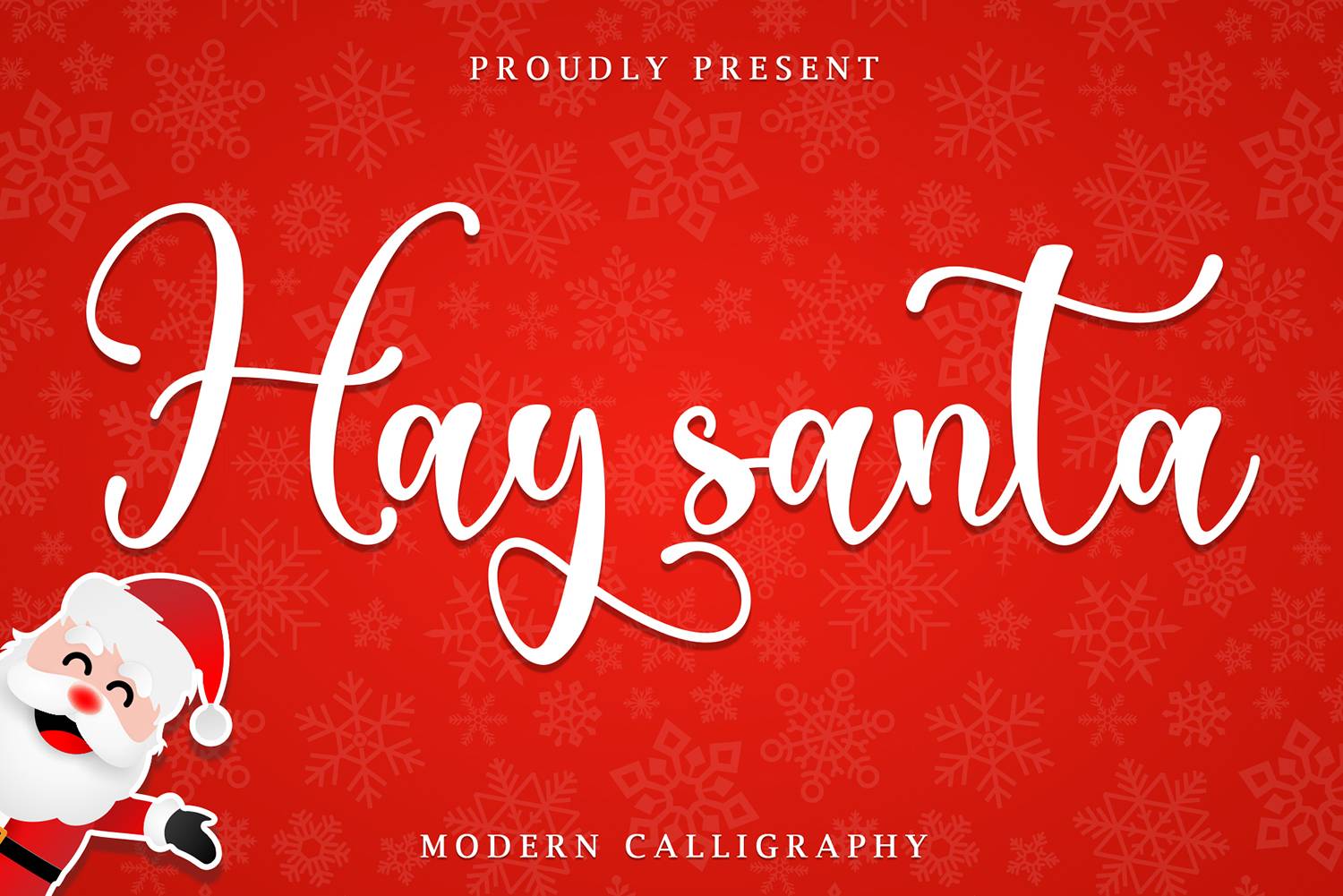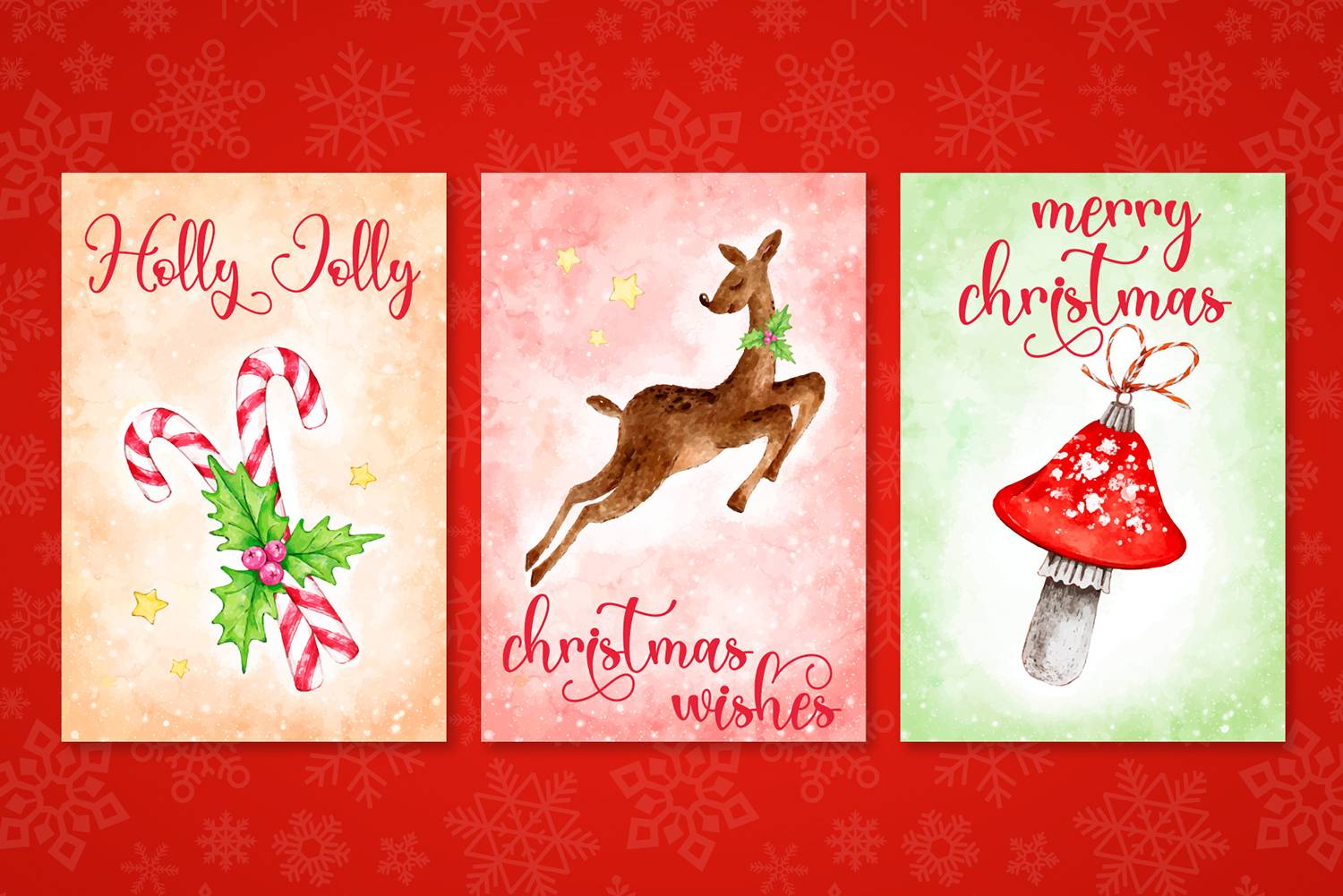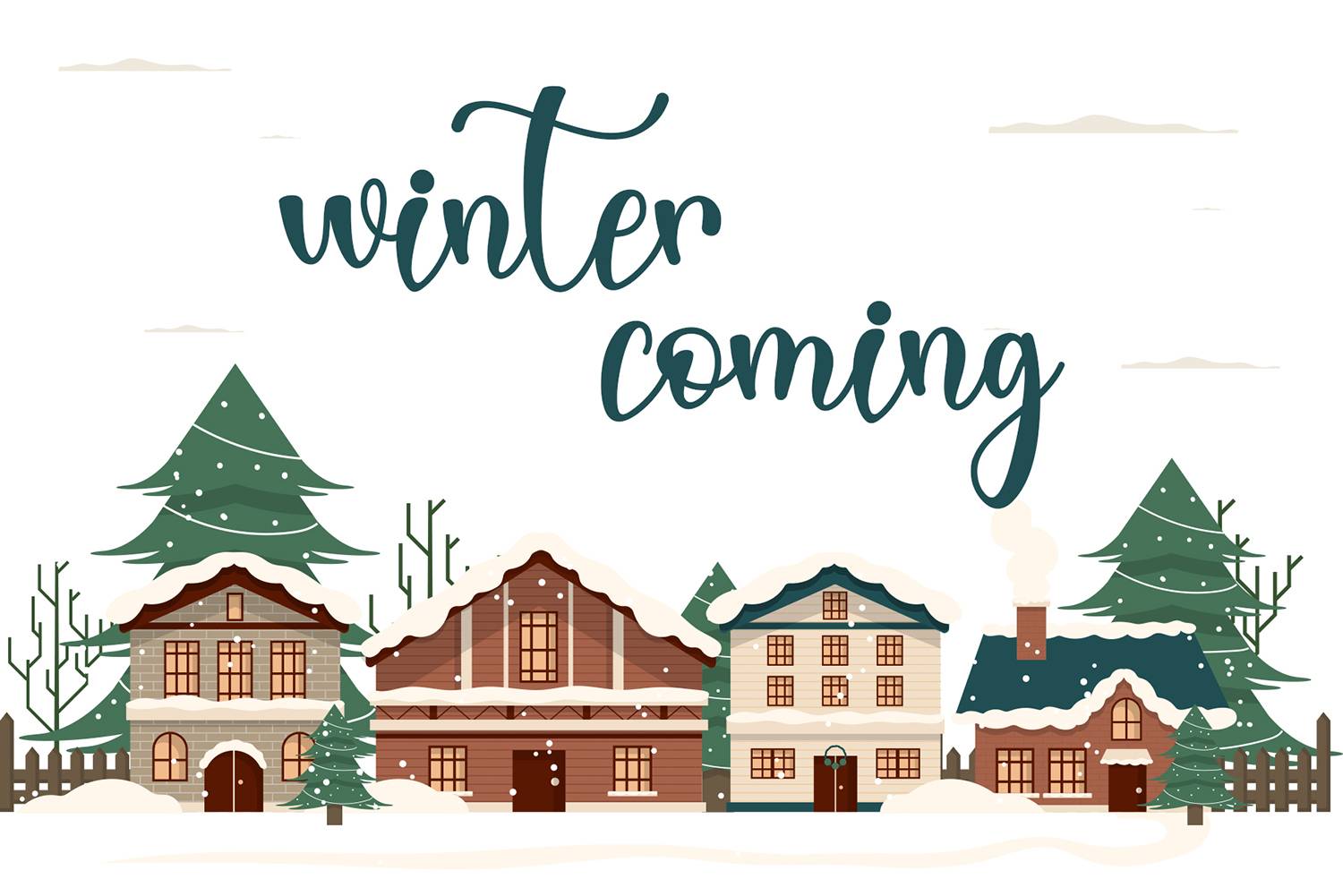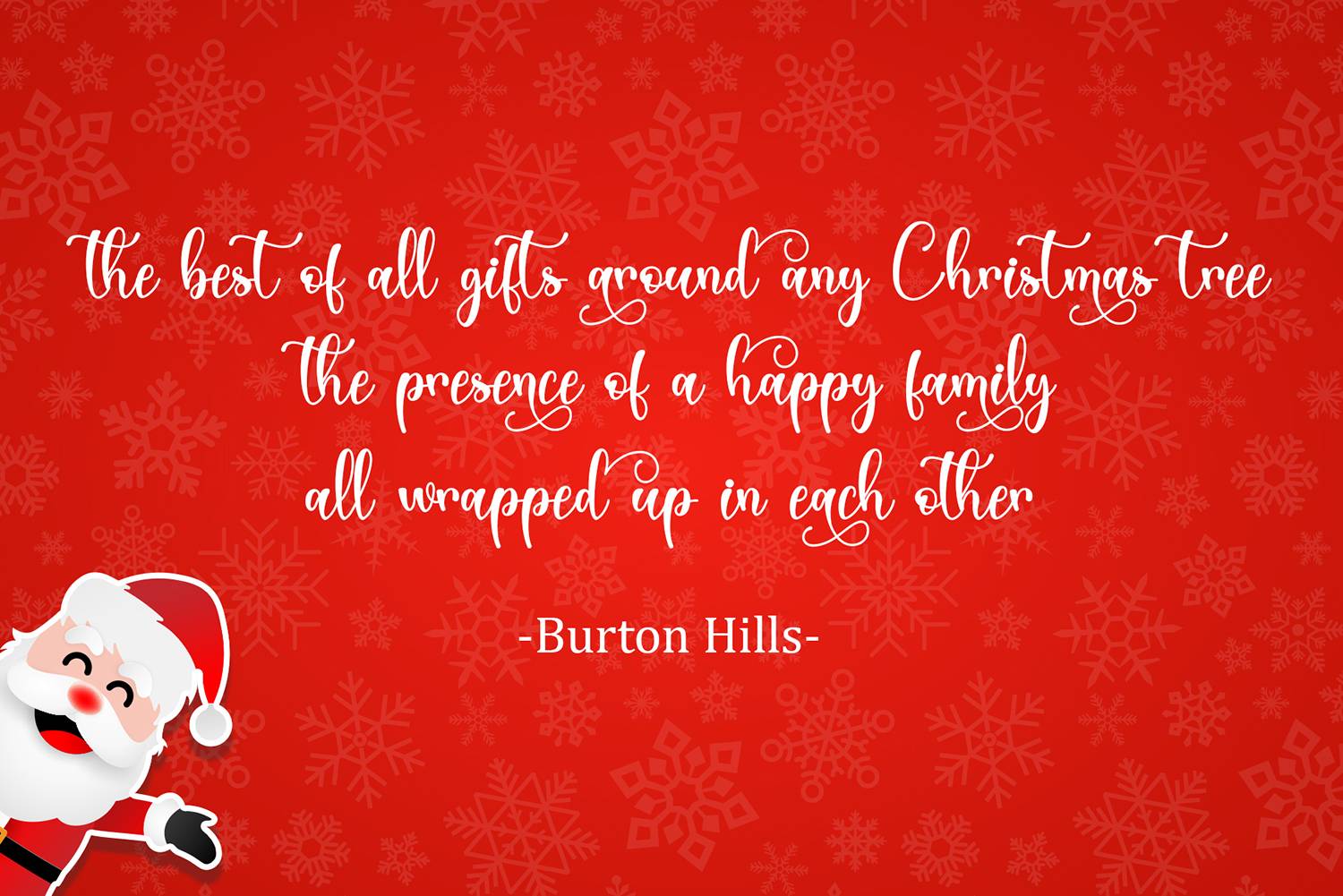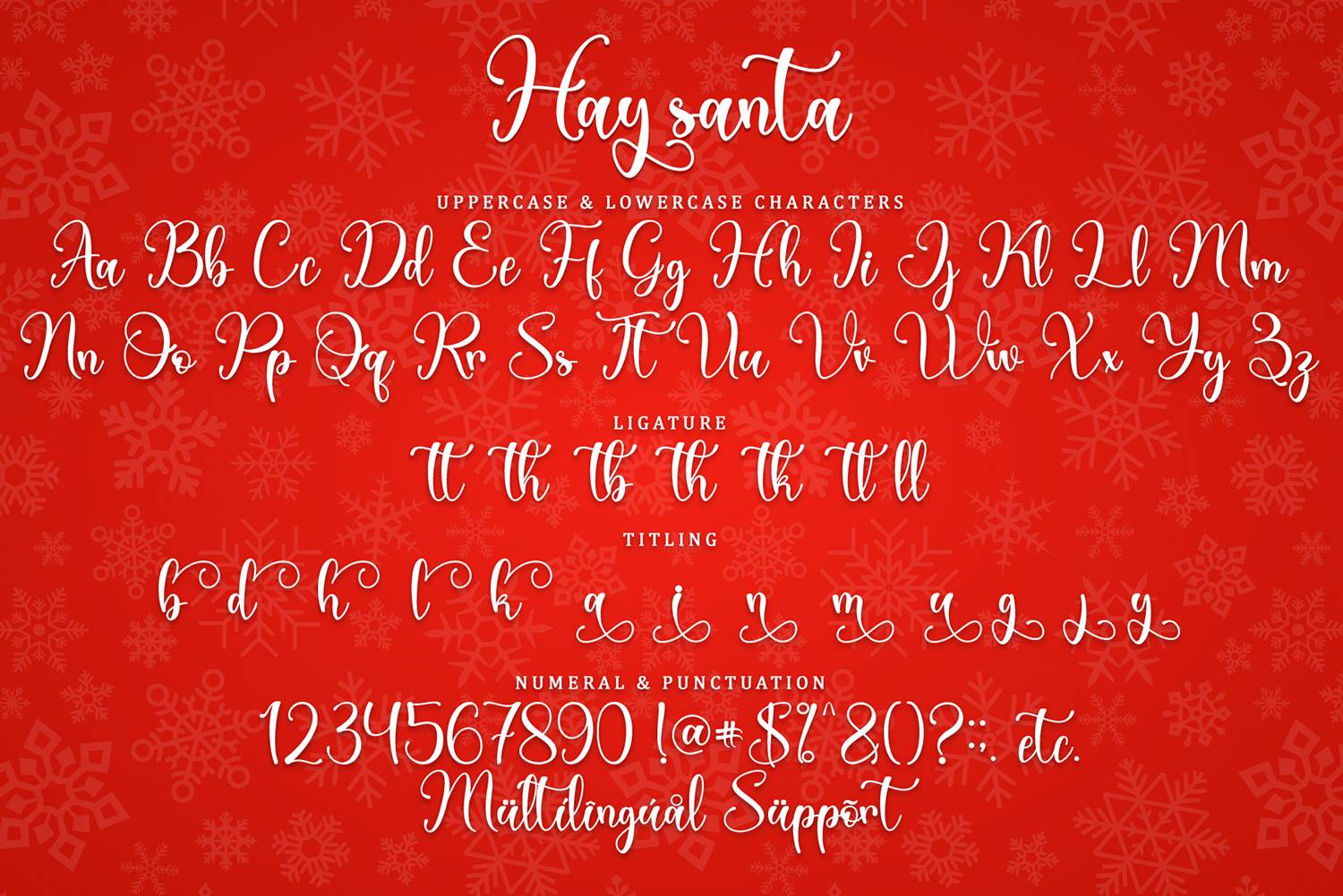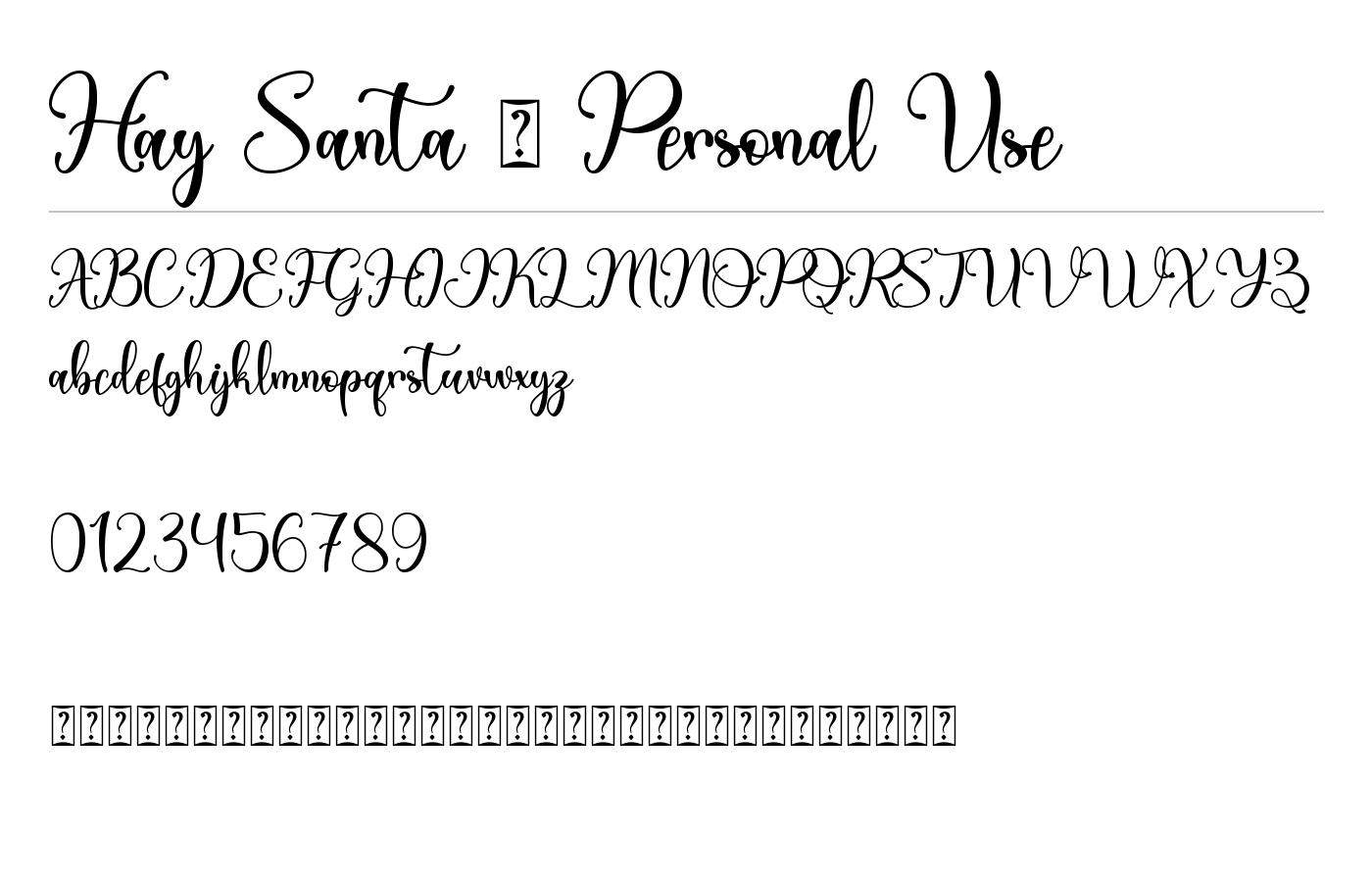
Hay Santa Font is a charming, handwritten script typeface with a playful and elegant flair. Its smooth, flowing lines and moderate contrast create a warm, inviting feel perfect for personal projects, holiday-themed designs, invitations, and branding that seeks a friendly yet sophisticated touch. This font works especially well in headlines or logos where a handcrafted, stylish look is desired.
Hay Santa Font
About Hay Santa Font